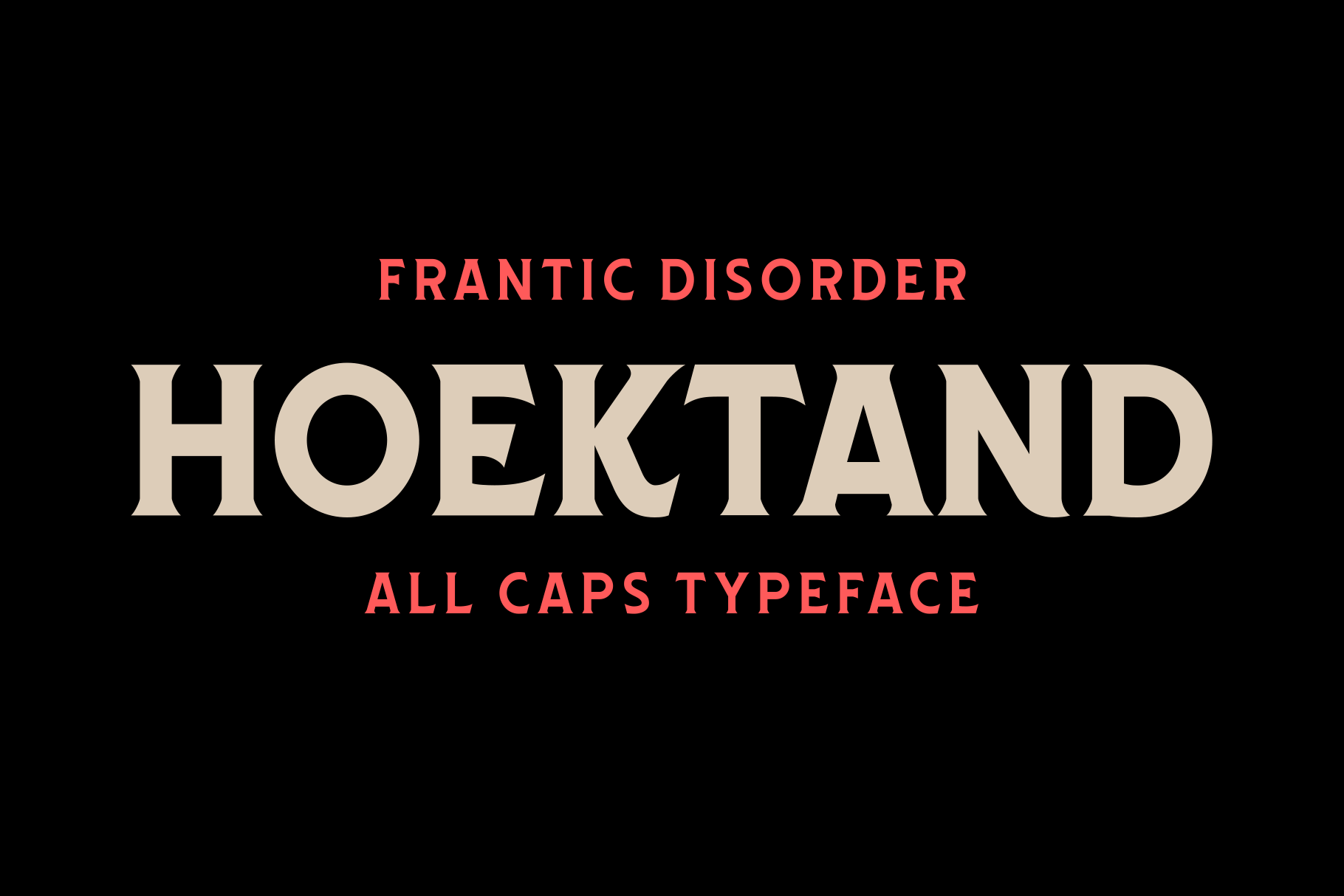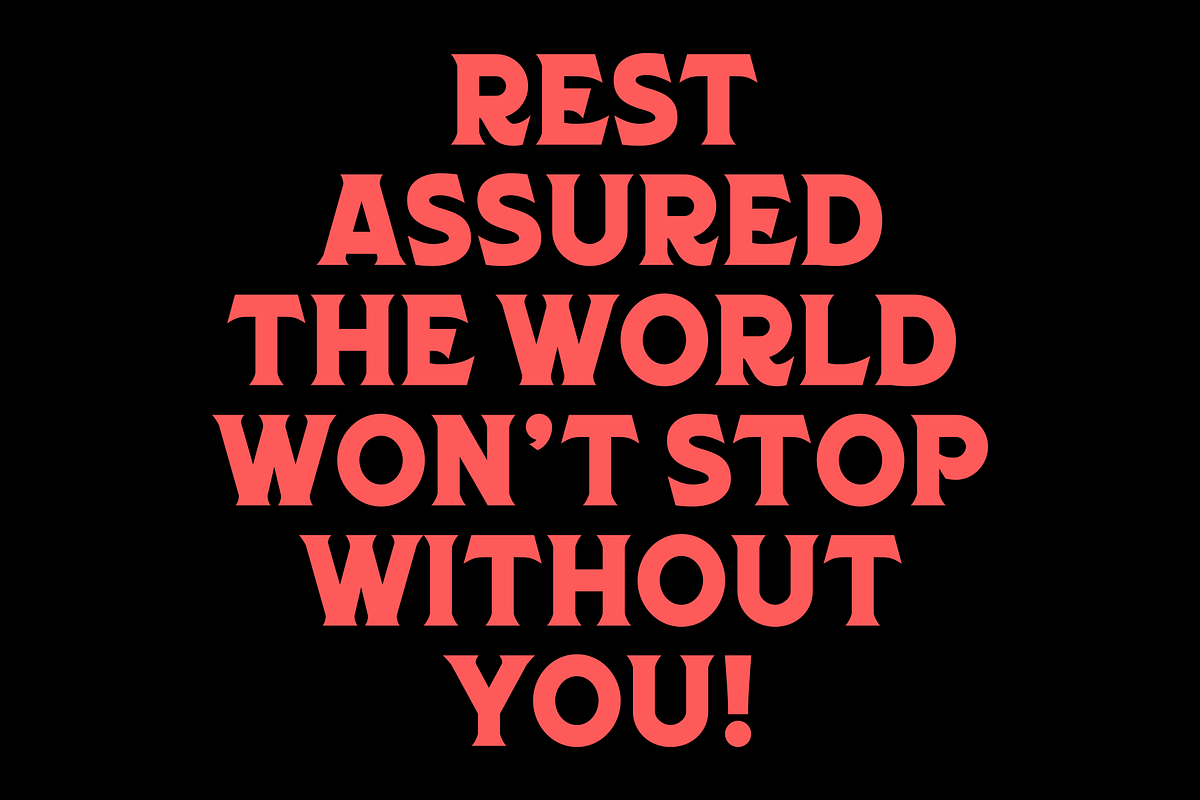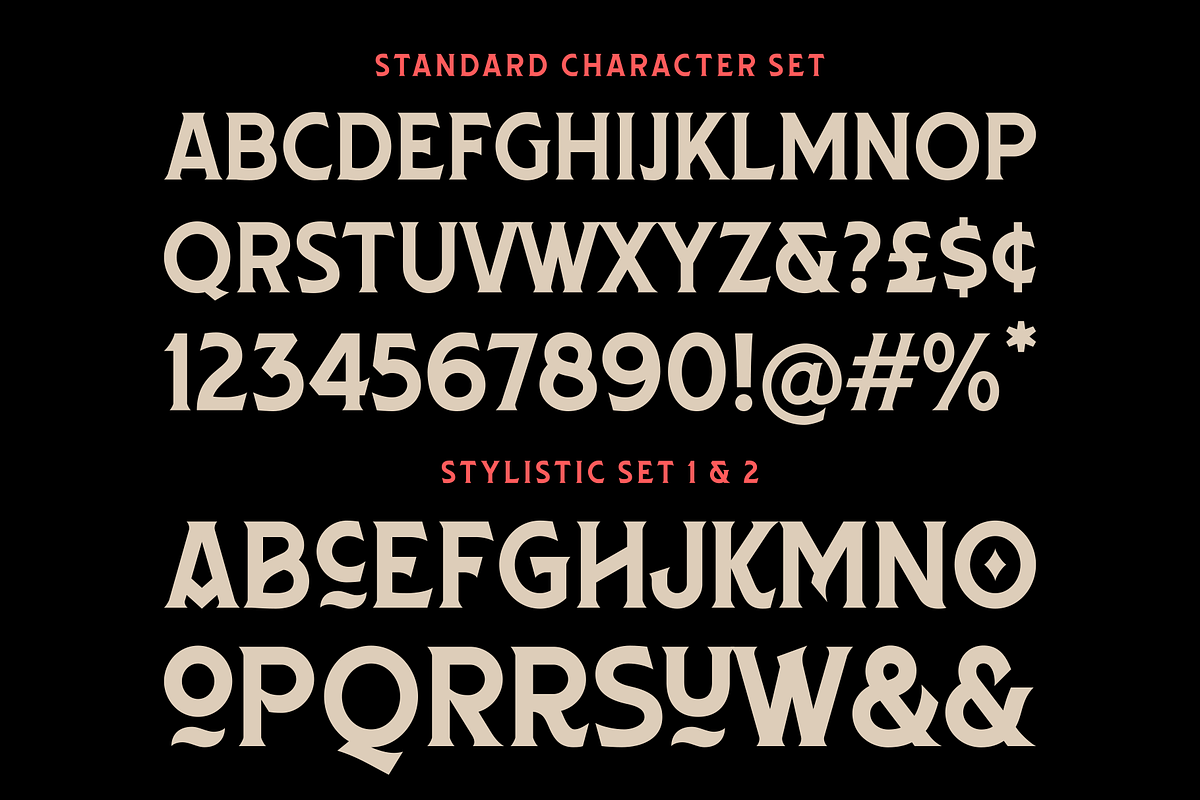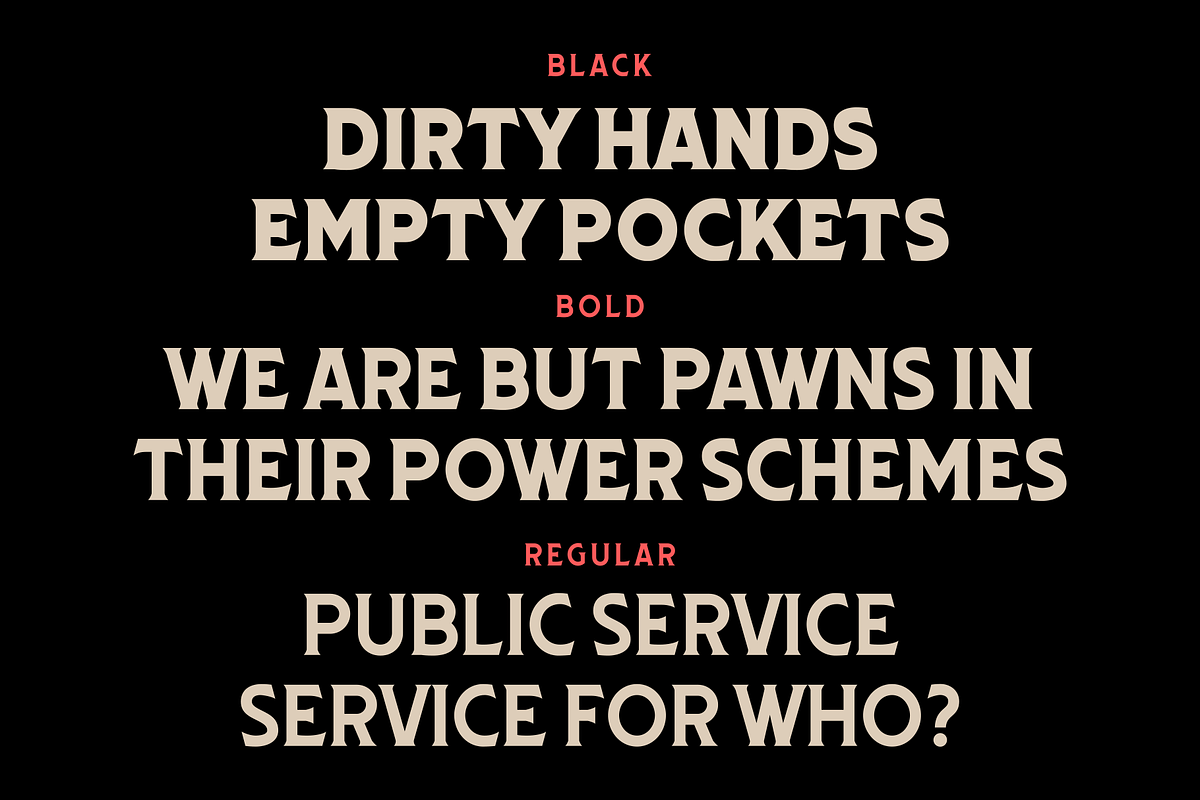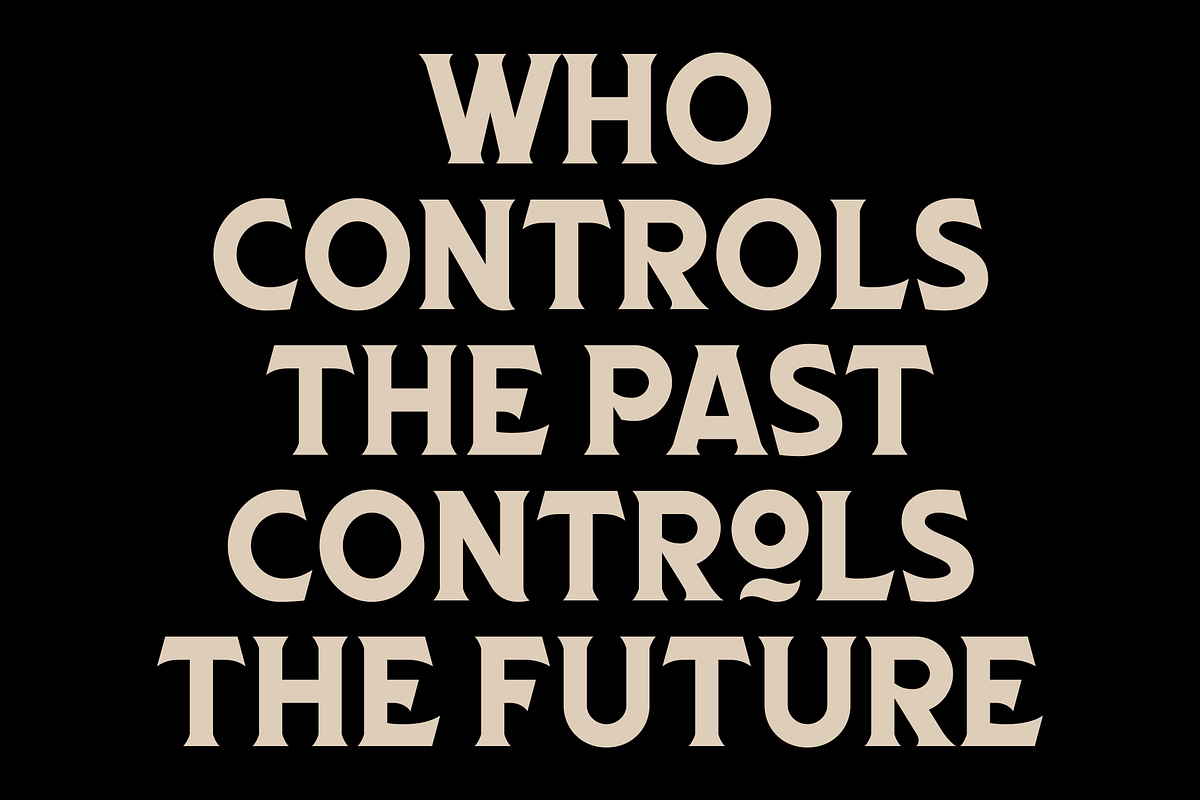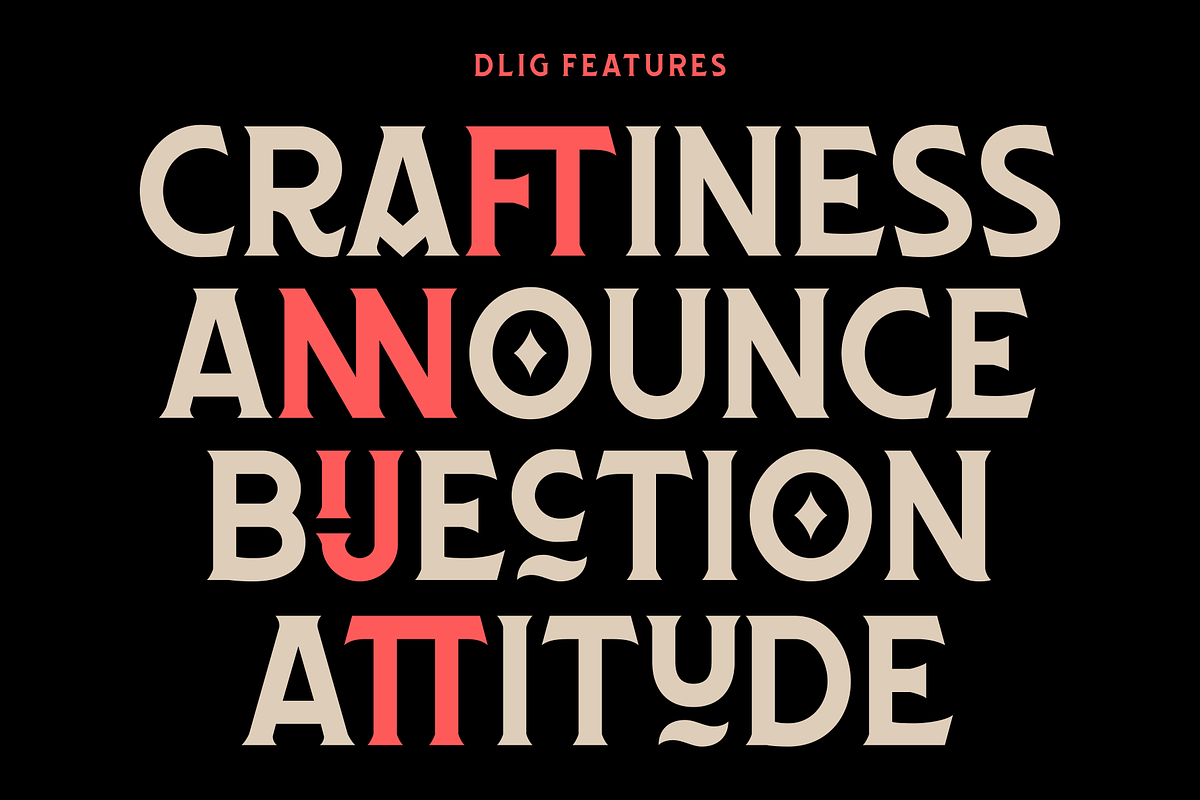
Hoektand Typeface
Hoektand is an all-caps flare-serif display typeface that represents a classic, sharp, and bold style. The font comes in three different weights: Regular, Bold, and Black, making it perfect for headlines and display purposes. Files Included: OTF & TTF.